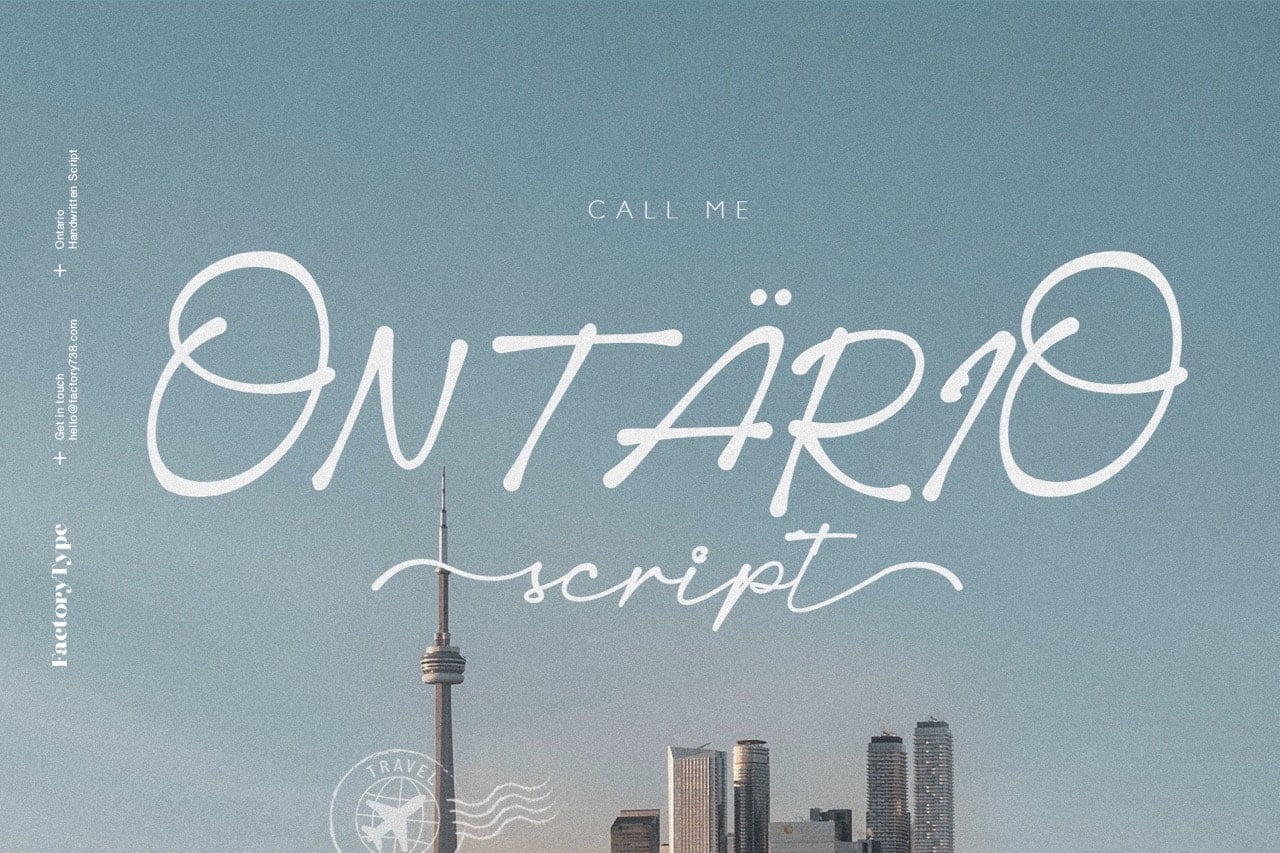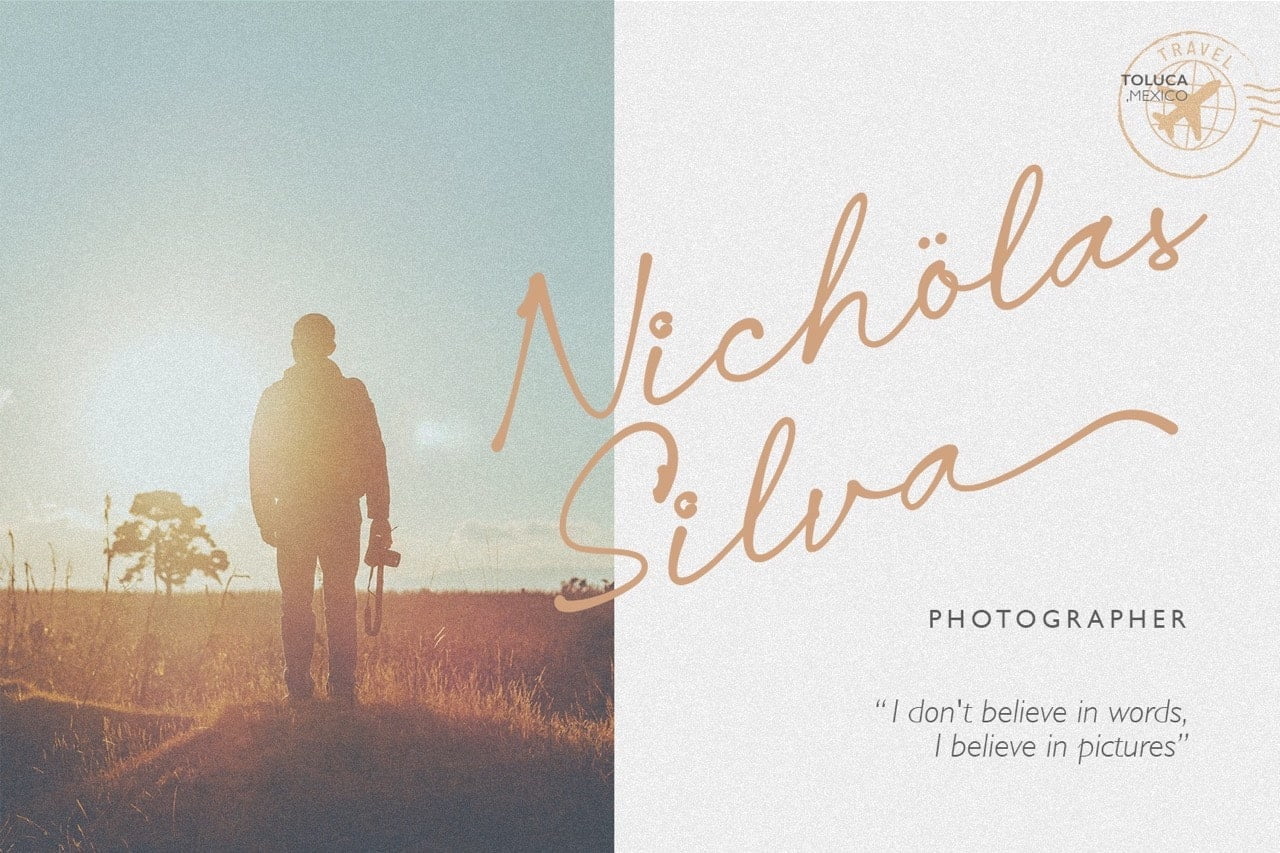
Introducing Ontario, a stylish handwritten font with a personal touch. This bold and classy script is ideal for all your projects: branding and logo, wedding designs, advertisements, product packaging, product designs and labeling. As it was designed with love, it is the perfect choice for personal projects such as invitations, stationery or photography watermark.
- 3 Styles
- Stylistic Ligatures and Alternate Glyphs
Ontario Handwriting